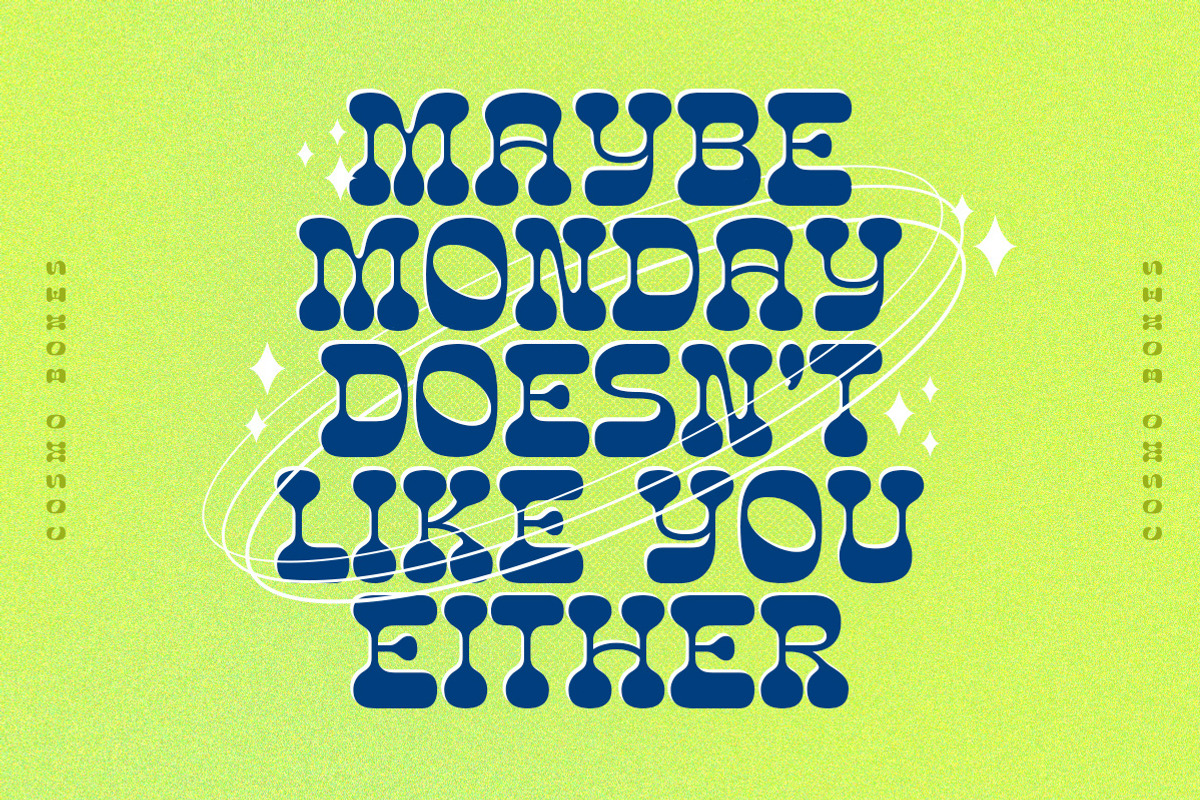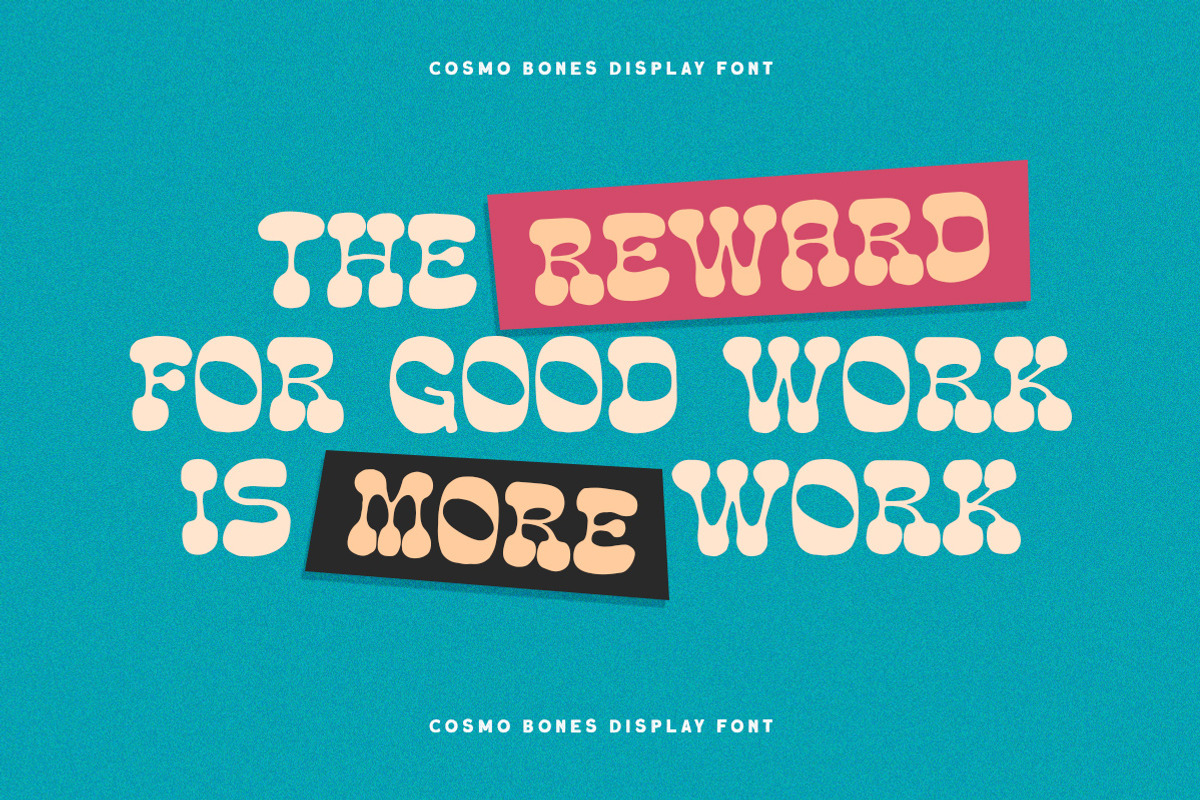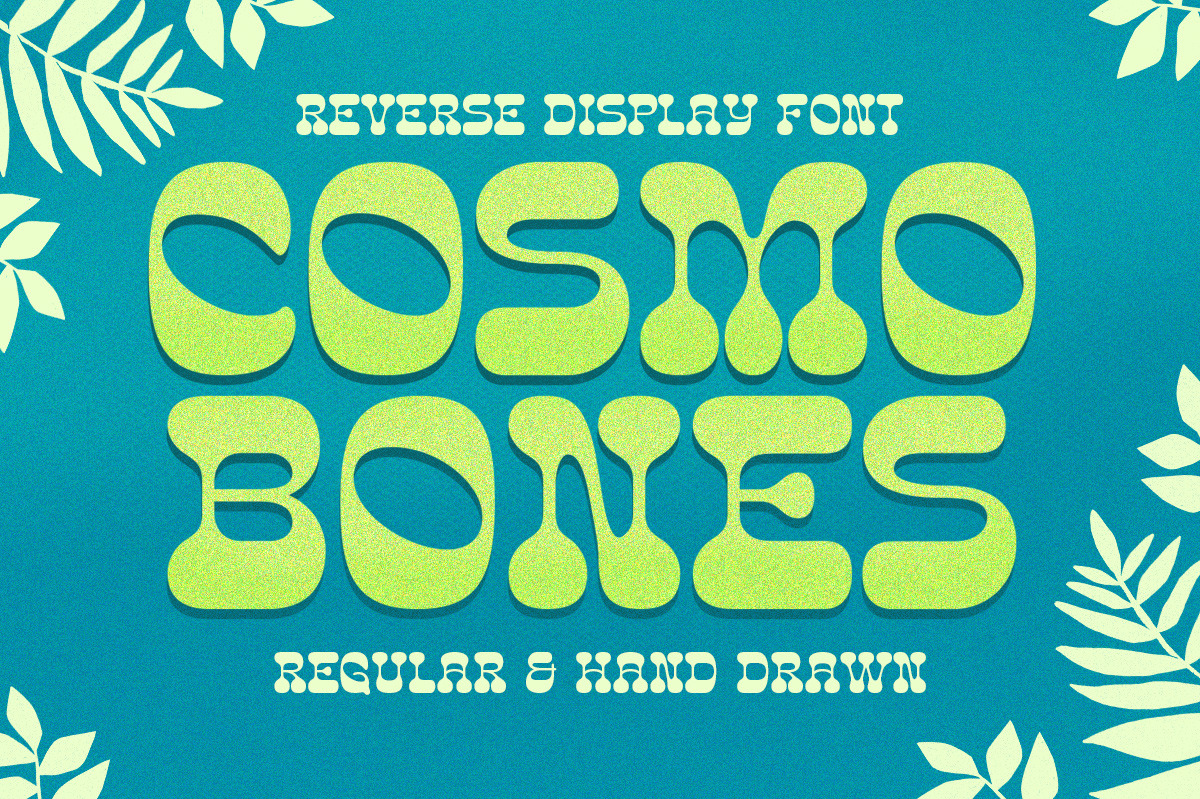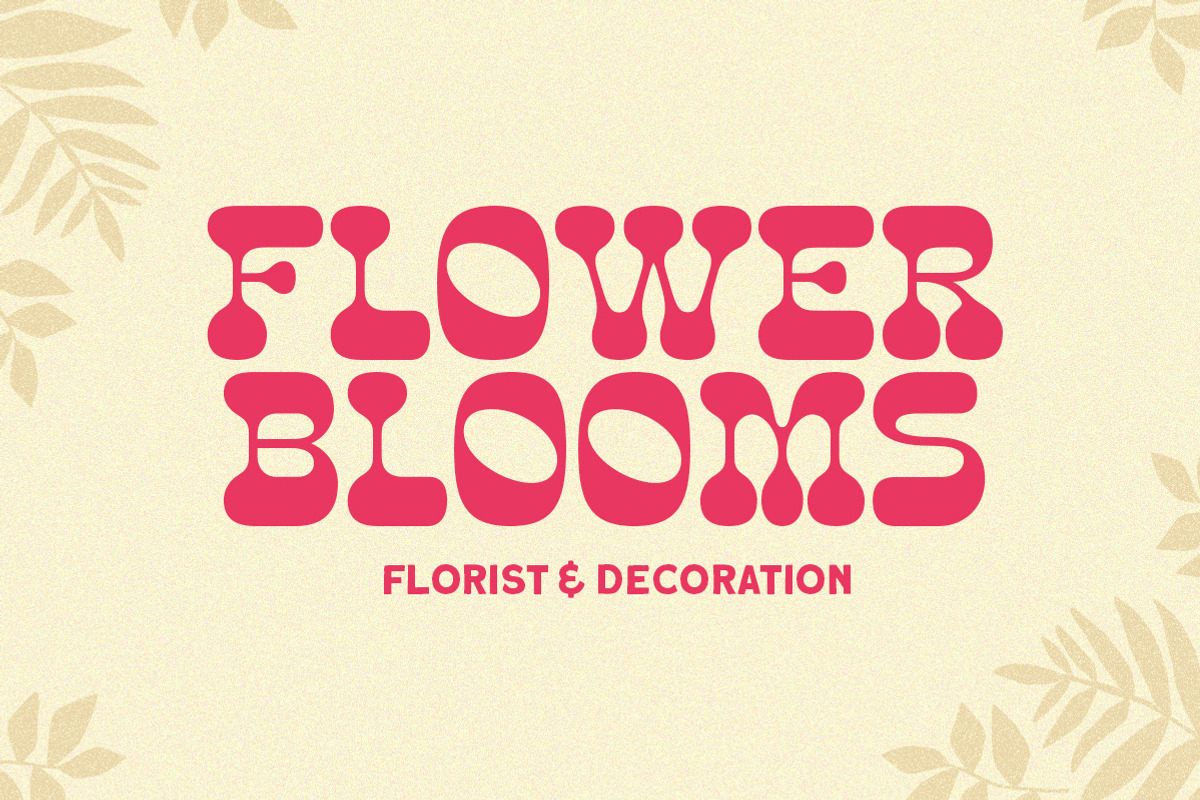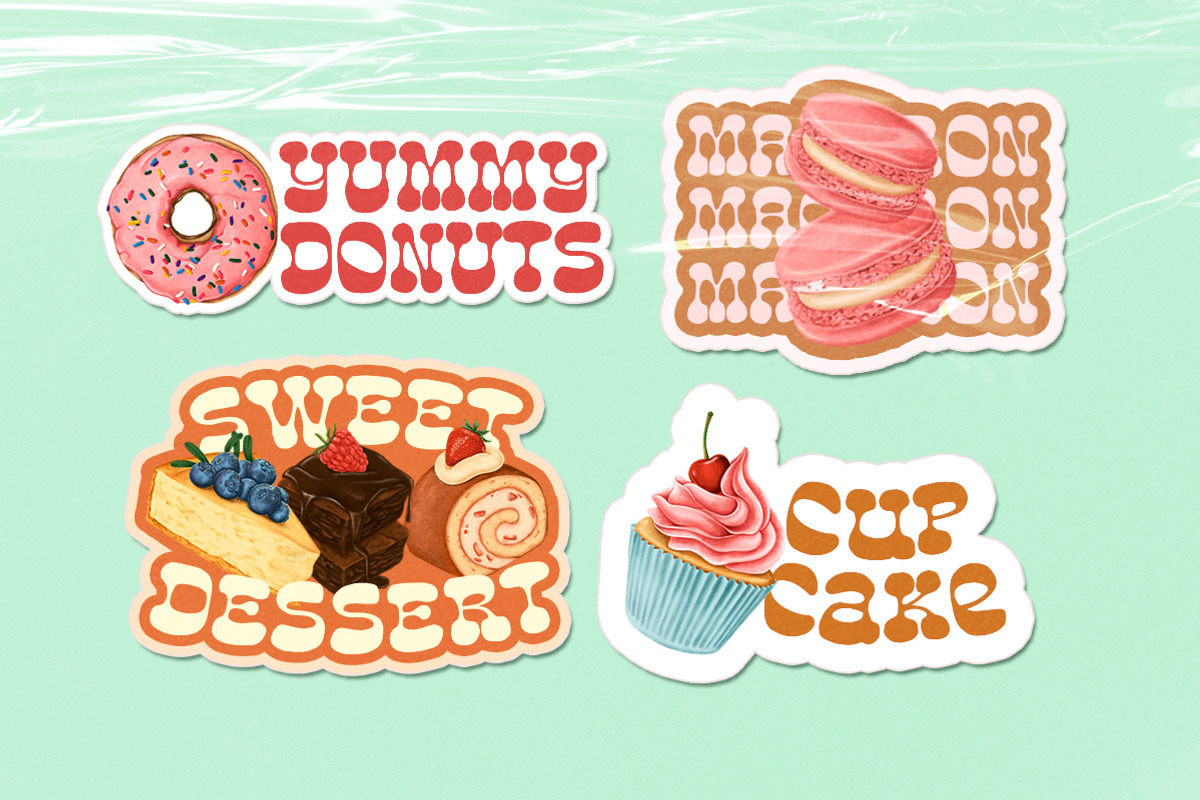
Cosmo Bones - Reverse Display Font
Cosmo Bones is a reverse display font with fun and playful looks. This type of font perfectly made to be applied especially in storybook children or child theme which is need a standout font, and the other various formal forms such as invitations, labels, logos, magazines, books, greeting / wedding cards, packaging, fashion, make up, stationery, novels, labels or any type of advertising purpose.
- regular & hand drawn